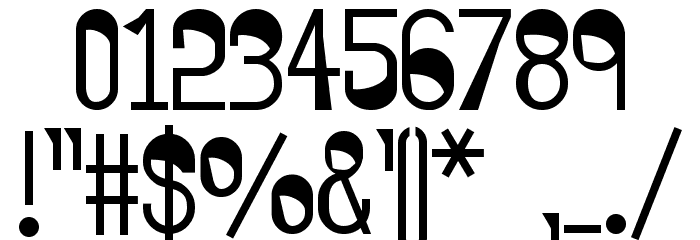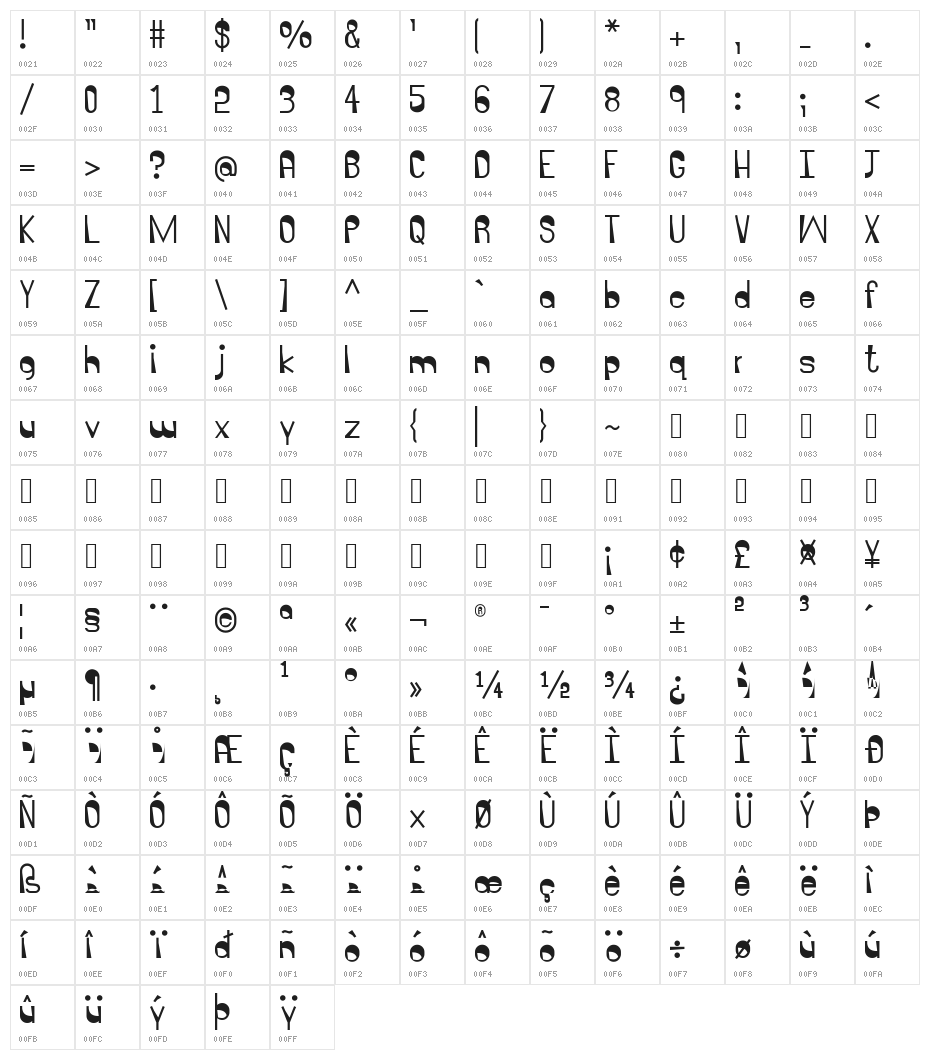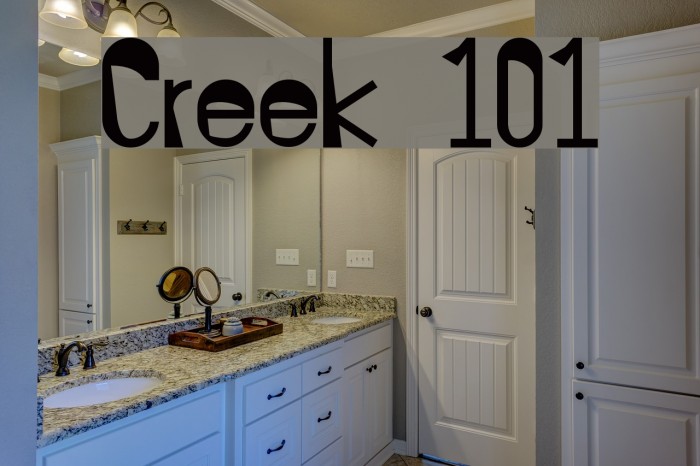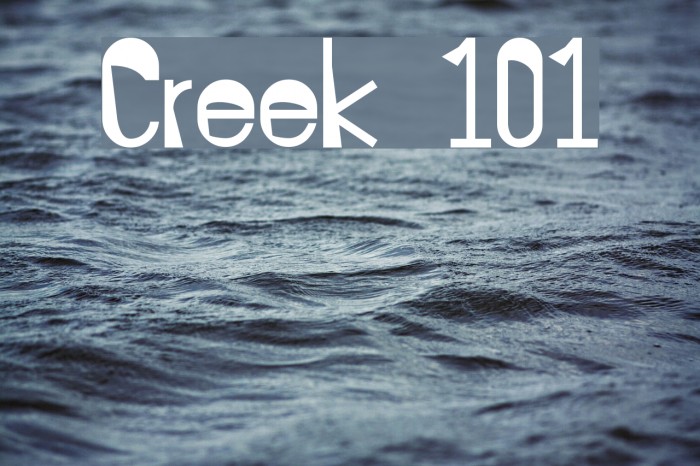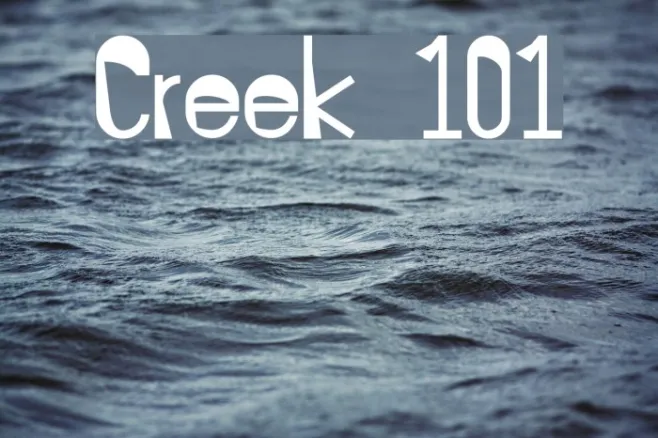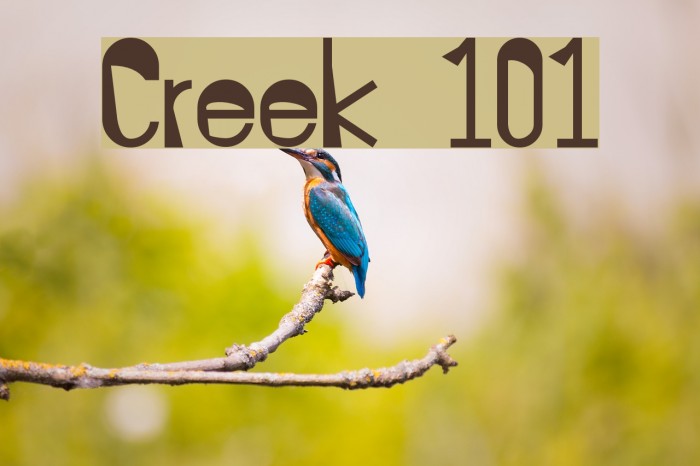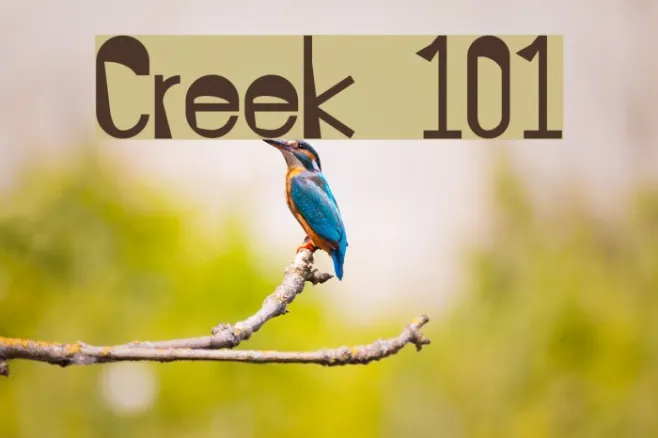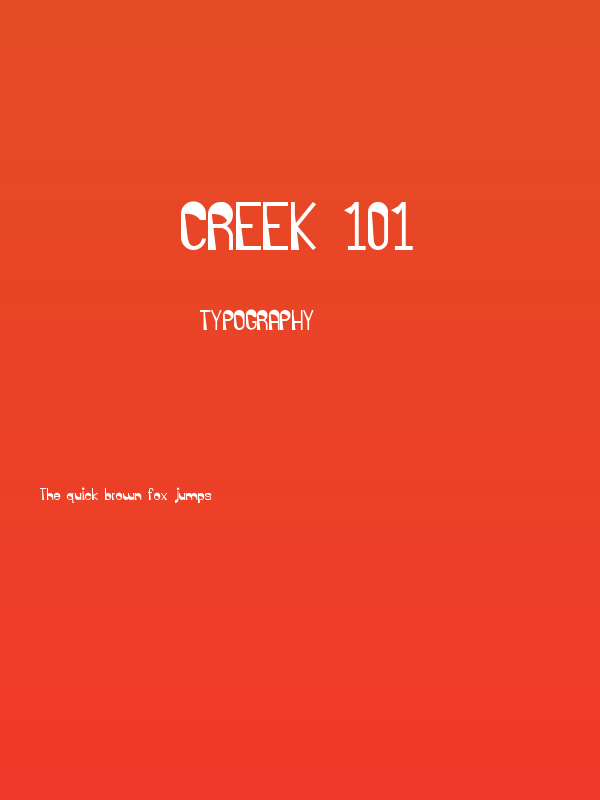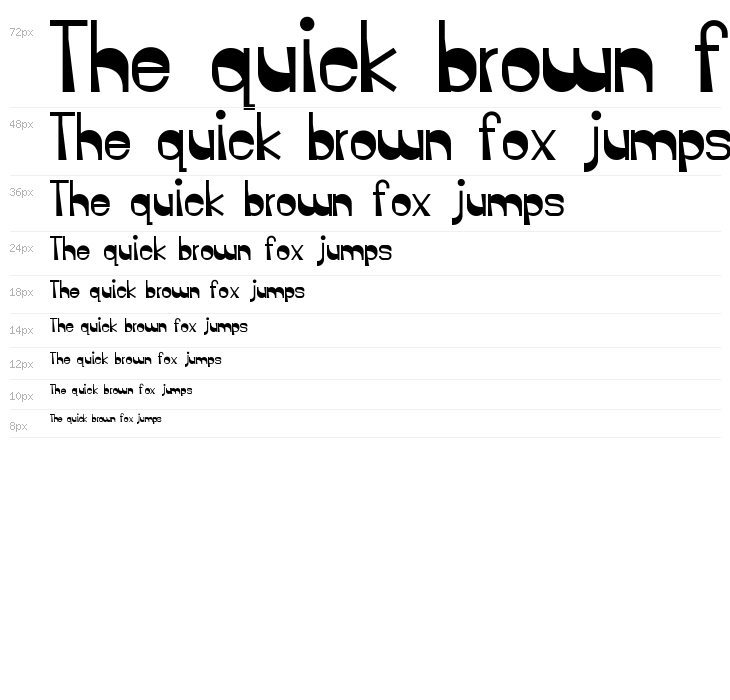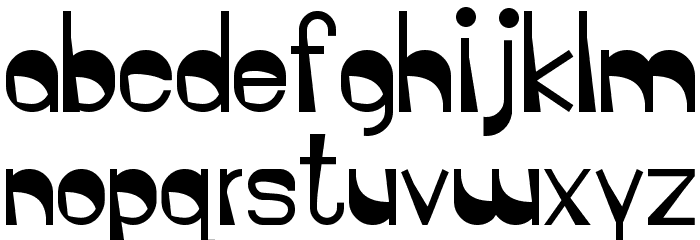
Creek 101 Font
Creek 101 Description
This font features a bold and playful design with a unique blend of geometric and organic shapes. The uppercase letters are characterized by their thick strokes and slightly condensed forms, giving them a strong presence. The lowercase letters maintain a similar weight, with some characters exhibiting rounded edges that add a touch of softness. The numerals are consistent with the overall style, offering a modern and approachable look. Special characters are well-integrated, maintaining the font's cohesive appearance. This font's distinct style makes it suitable for creative and eye-catching designs.